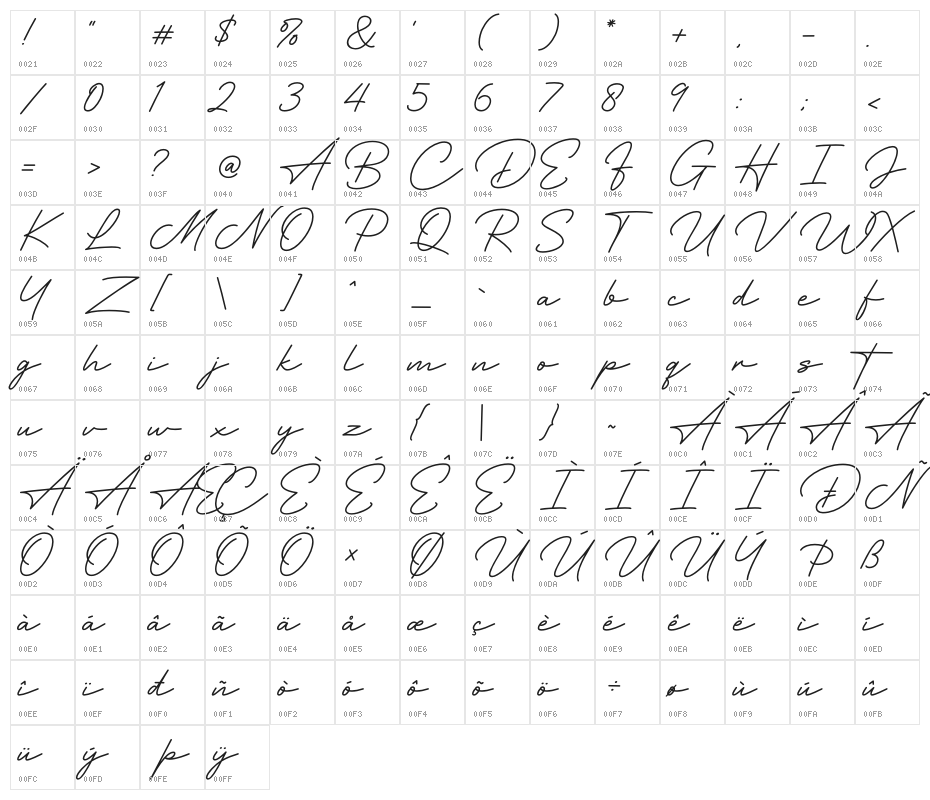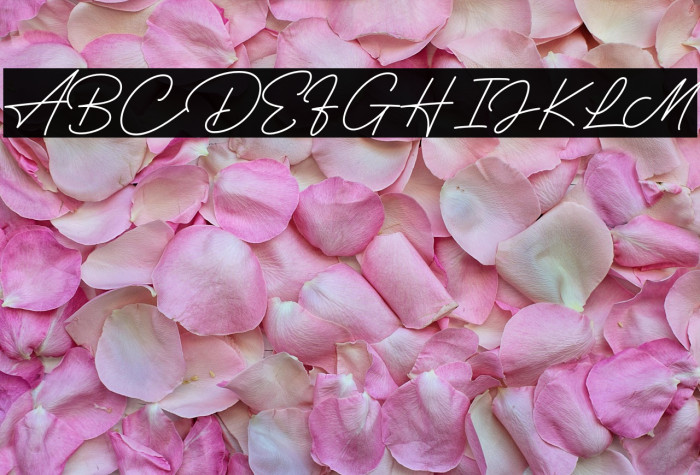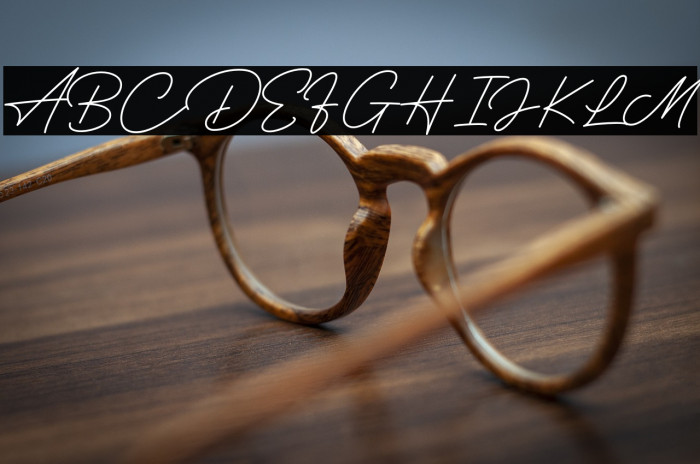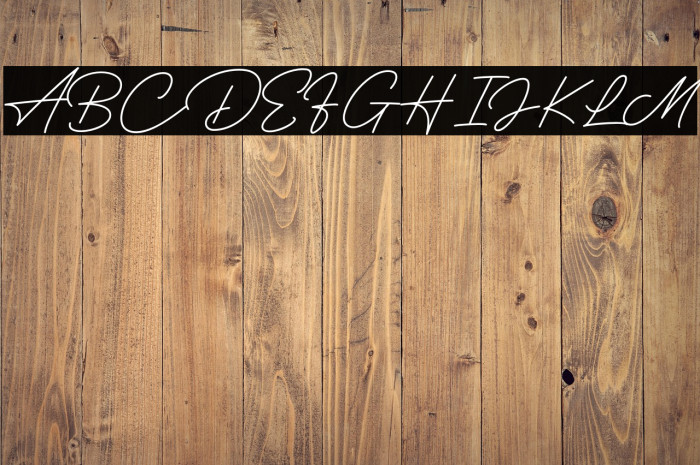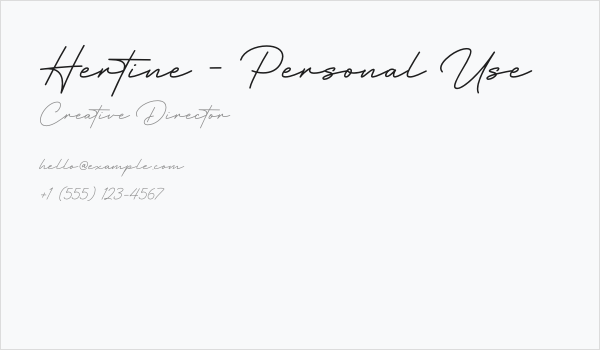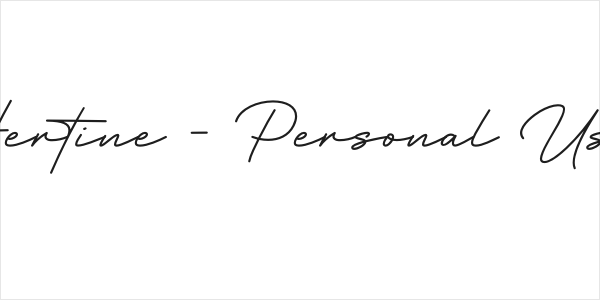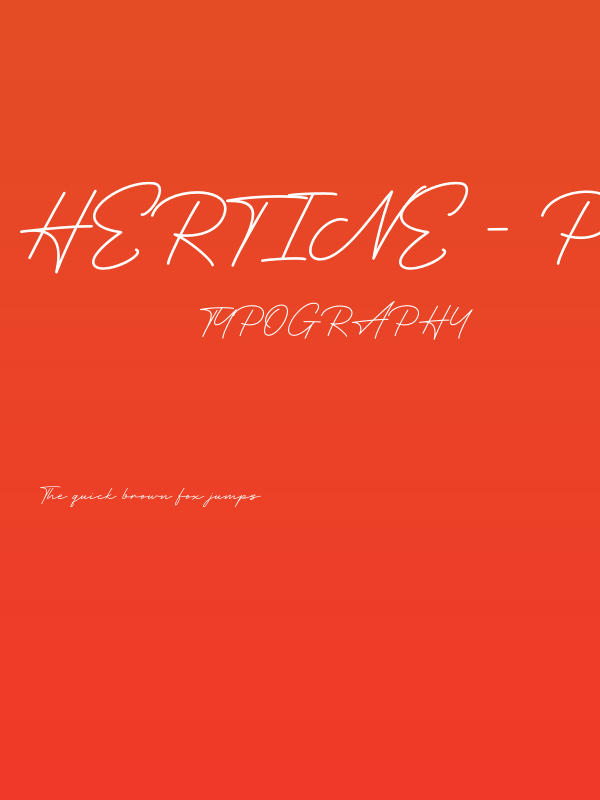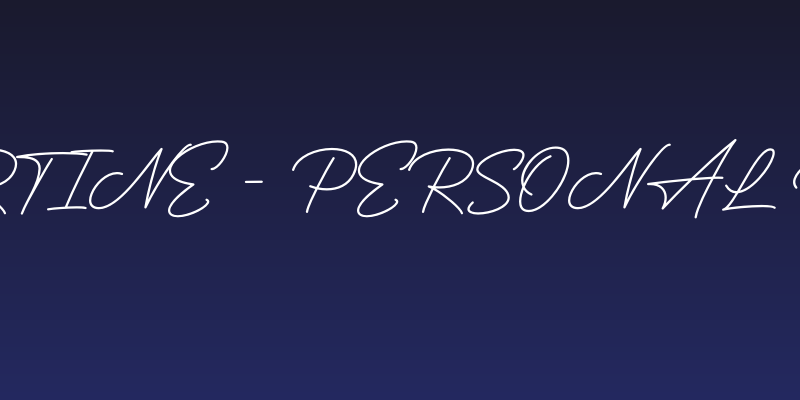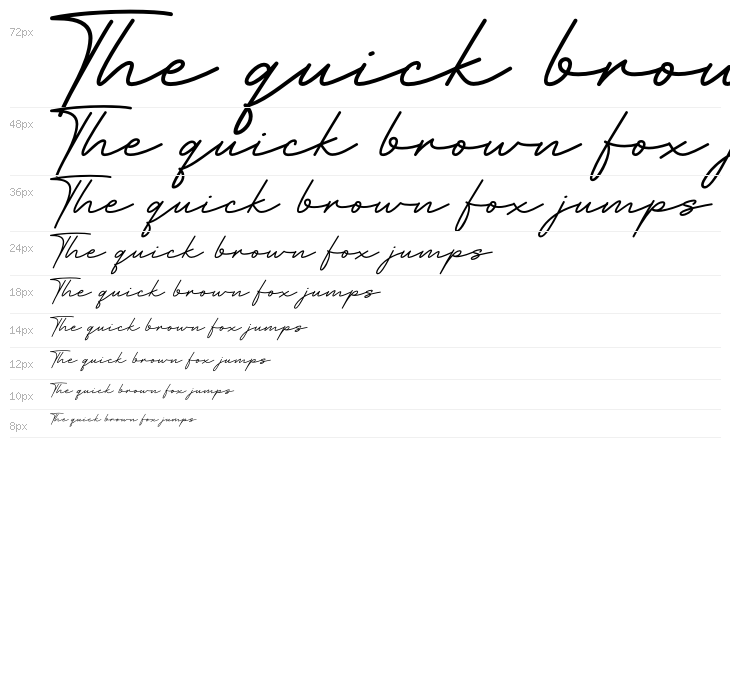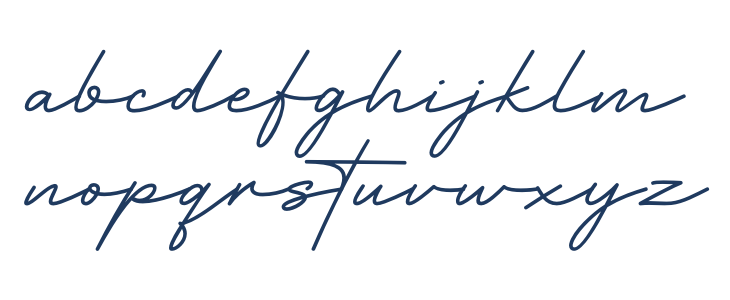
Hertine - Personal Use Font
Hertine - Personal Use Description
This font exudes a sophisticated and elegant script style, characterized by its fluid and graceful strokes. The letters are connected in a cursive manner, creating a seamless flow that mimics natural handwriting. The uppercase letters are slightly more ornate, with subtle flourishes that add a touch of refinement. The lowercase letters maintain a consistent slant, enhancing the overall cohesiveness of the design. The numerals are clear and legible, maintaining the script's aesthetic without sacrificing readability. Special characters are thoughtfully integrated, ensuring versatility across various applications. This font is ideal for projects that require a personal and artistic touch, such as invitations, greeting cards, and branding materials.